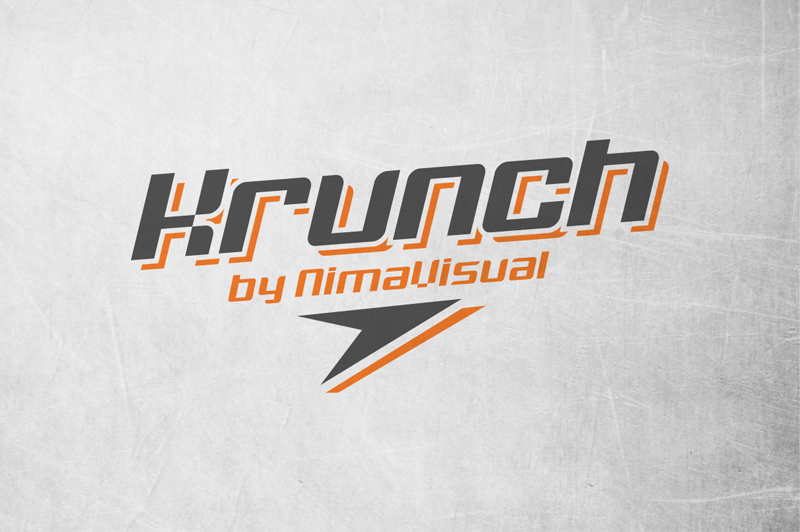
Font name: | Krunch |
Author: | NimaVisual |
Krunch is a sans-serif techno font perfect for letterhead, posters and logos. It comes in 2 styles and has a complete western character set of 187 glyphs. For a commercial license, visit my store http://goo.gl/Z8SphX |